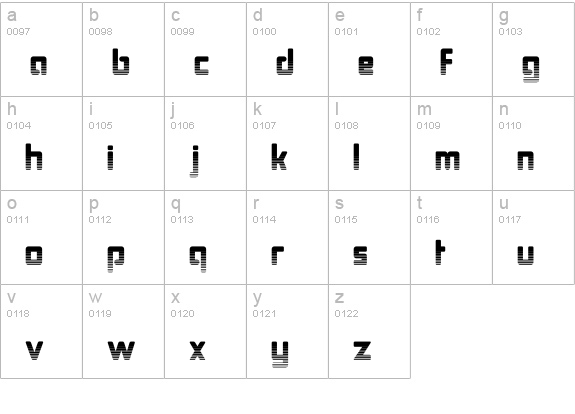
Introducing Bonk Undercut font, a modern and stylish typeface that exudes creativity and individuality. With its unique undercut design and bold strokes, Bonk Undercut is perfect for making a statement in your designs. This versatile font is ideal for branding, logos, posters, and more. What's even better is that Bonk Undercut font is available for free download at FontsMarket.com. Embrace the boldness of Bonk Undercut and add a touch of edgy sophistication to your projects today!